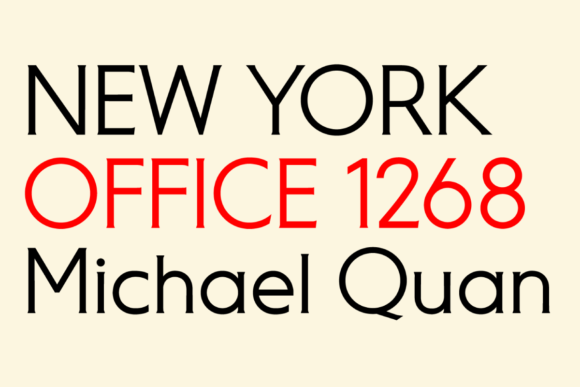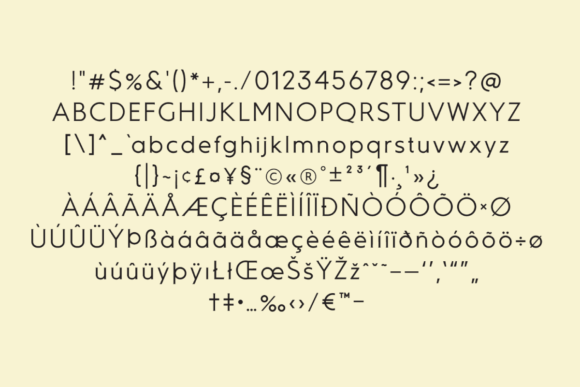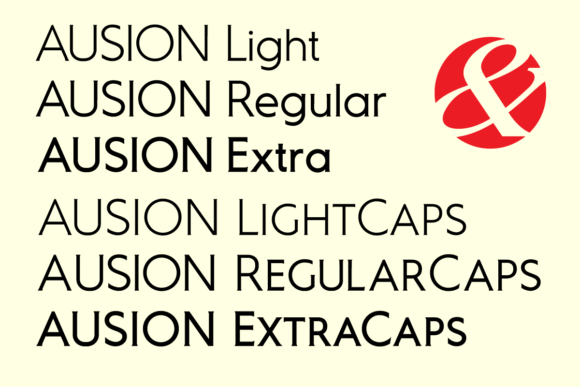
Ausion Font: Elevate Your Designs with a Minimal and Neat Sans Serif Font
Are you tired of using overused fonts that lack originality? Look no further than Ausion Font, a modern sans serif font that is sure to elevate your designs. With its minimal and neat aesthetic, Ausion Font is the perfect addition to any creative project. In this article, we’ll dive into the features and benefits of Ausion Font, and explore how it can help you take your designs to the next level.
What is Ausion Font?
Ausion Font is a carefully crafted sans serif font that exudes simplicity and elegance. Its clean lines and minimalist design make it an incredibly versatile font that can be used in a wide range of projects. Whether you’re designing a logo, creating a brochure, or crafting a website, Ausion Font is the perfect choice.
Key Features of Ausion Font
- Minimal and Neat Design: Ausion Font boasts a sleek and modern design that is sure to grab attention.
- Highly Versatile: With its simple and uncluttered design, Ausion Font can be used in a wide range of projects, from print materials to digital platforms.
- Easily Readable: The font’s clear and concise design makes it easy to read, even at small sizes.
- Unique and Original: Ausion Font is a one-of-a-kind font that will help your designs stand out from the crowd.
Benefits of Using Ausion Font
So why choose Ausion Font for your next project? Here are just a few benefits of using this amazing font:
- Enhance Your Brand’s Visual Identity: Ausion Font can help you create a consistent visual brand that reflects your company’s values and personality.
- Increase Legibility: The font’s clear design makes it easy for your audience to read and understand your message.
- Stand Out from the Crowd: With its unique and original design, Ausion Font will help your designs grab attention and stand out from the competition.
- Save Time and Effort: Ausion Font is easy to use and can be quickly integrated into your design workflow.
How to Use Ausion Font in Your Designs
Using Ausion Font in your designs is easy. Here are a few tips to get you started:
- Pair it with Other Fonts: Ausion Font works well with a variety of other fonts, so don’t be afraid to experiment with different pairings.
- Use it in Headings and Body Text: Ausion Font is suitable for use in both headings and body text, making it a versatile addition to any design.
- Experiment with Different Colors: Ausion Font looks great in a variety of colors, so try experimenting with different hues to find the perfect look for your design.
In conclusion, Ausion Font is a minimal and neat sans serif font that is sure to elevate your designs. With its highly versatile design, ease of use, and unique aesthetic, Ausion Font is the perfect addition to any creative project. Whether you’re a designer, crafter, or DIY enthusiast, Ausion Font is a must-have font that will help you take your designs to the next level. So why wait? Download Ausion Font today and see how it can transform your designs!
- Is Ausion Font easy to read?: Yes, Ausion Font is designed to be highly legible, even at small sizes.